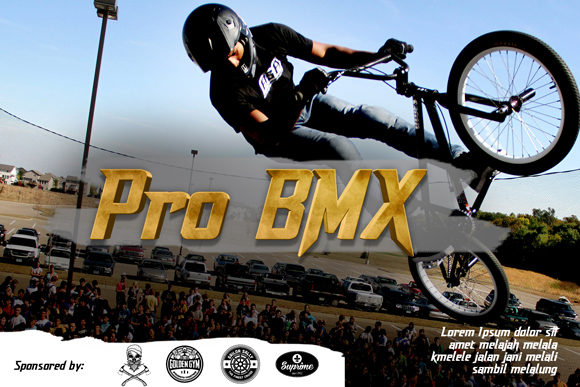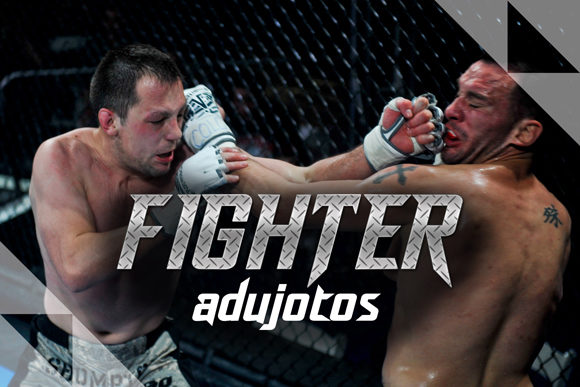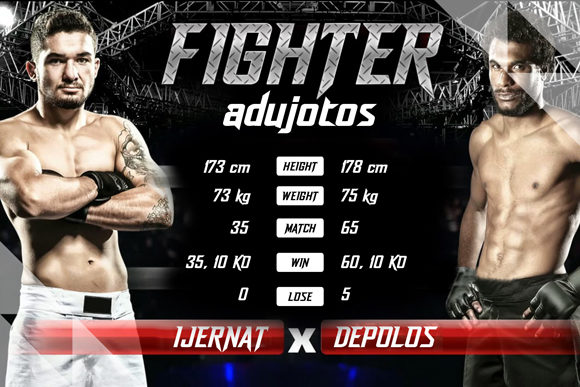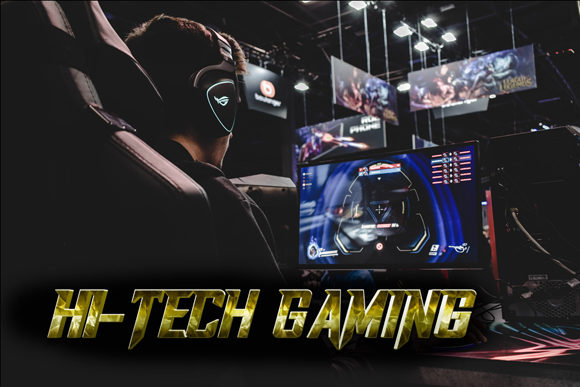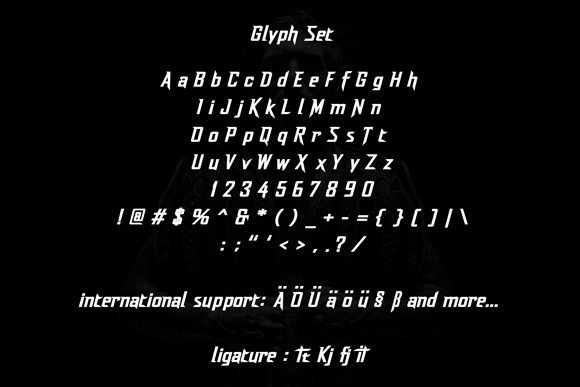
Unleash the Power of Dash Horizon Font: Elevate Your Designs with a Sporty Edge
Are you tired of using the same old fonts in your design projects? Do you want to add a dynamic vibe that sets your work apart from the rest? Look no further than the Dash Horizon Font, a strong and powerful display font that’s perfect for designers and crafters looking to inject a sporty feel into their creations.
What is Dash Horizon Font?
Dash Horizon Font is a modern, high-energy font designed to make a statement. Its sporty feel makes it ideal for use in a variety of design projects, from posters and flyers to logos and branding materials. With its bold, confident lines, Dash Horizon Font is sure to grab attention and leave a lasting impression.
Key Features of Dash Horizon Font
- Strong and Powerful: Dash Horizon Font is built to make a statement. Its bold lines and confident curves give it a strong, powerful presence that’s perfect for headlines, titles, and other display text.
- Sporty Feel: The font’s sporty feel makes it perfect for designs that require a dynamic, high-energy vibe. Whether you’re creating a logo for a sports team or designing a poster for a fitness event, Dash Horizon Font is the perfect choice.
- Versatile: Despite its sporty feel, Dash Horizon Font is surprisingly versatile. It can be used in a variety of design projects, from modern and edgy to bold and playful.
- Easy to Read: Despite its bold lines, Dash Horizon Font is surprisingly easy to read, even at smaller sizes. This makes it perfect for use in body text, as well as display text.
How to Use Dash Horizon Font in Your Designs
Dash Horizon Font is incredibly easy to use, even for designers who are new to working with fonts. Here are a few tips to get you started:
- Pair it with a neutral font: For maximum impact, pair Dash Horizon Font with a neutral font that provides a clean, simple contrast. This will help your design stand out without overwhelming the viewer.
- Use it for headlines: Dash Horizon Font is perfect for headlines and titles, where its bold lines and confident curves can really make a statement.
- Experiment with colors: Dash Horizon Font looks great in a variety of colors, from bold and bright to subtle and muted. Experiment with different colors to find the perfect look for your design.
Benefits of Using Dash Horizon Font
So why should you choose Dash Horizon Font for your next design project? Here are just a few benefits of using this powerful display font:
- Adds a dynamic vibe: Dash Horizon Font adds a dynamic, high-energy vibe to any design project, making it perfect for designers who want to create something that really stands out.
- Increases visibility: The font’s bold lines and confident curves make it easy to read, even from a distance. This makes it perfect for use in signage, posters, and other display materials.
- Versatile: Dash Horizon Font is surprisingly versatile, making it perfect for use in a variety of design projects, from modern and edgy to bold and playful.
If you’re looking for a strong and powerful display font that adds a sporty feel to your designs, look no further than Dash Horizon Font. With its bold lines, confident curves, and easy-to-read design, this font is perfect for designers and crafters who want to create something truly dynamic. So why wait? Download Dash Horizon Font today and unleash the power of this amazing display font in your next design project!
Whether you’re a seasoned designer or just starting out, Dash Horizon Font is a great addition to your font library. Its versatility, readability, and sporty feel make it perfect for a wide range of design projects. So why not give it a try? You won’t be disappointed!